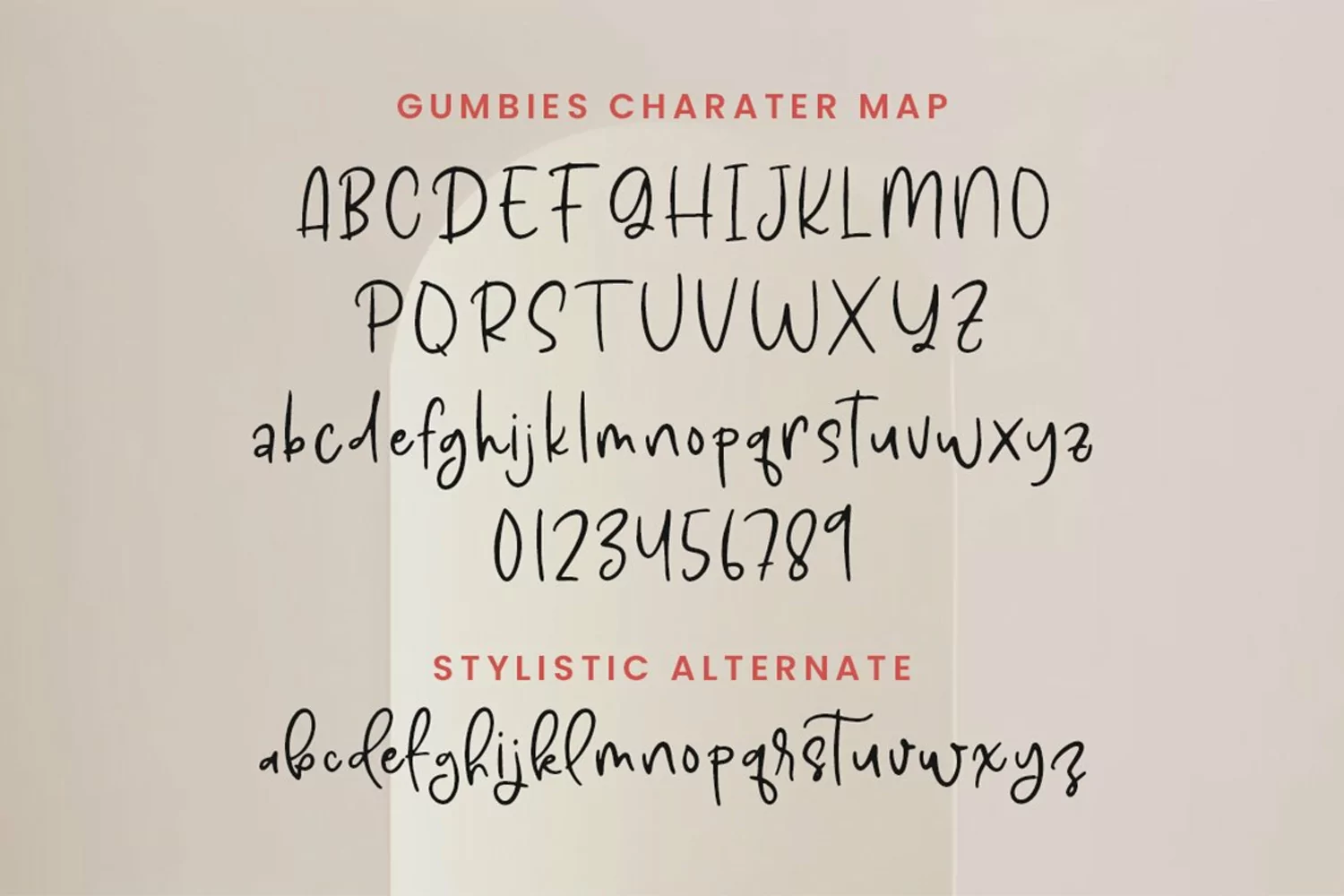
Gumbies a Kids font. with a bit of ligatures and alternates. To give you an extra creative work. Gumbies font support multilingual more than 100+ language. This font is good for logo design, Social media, Movie Titles, Books Titles, a short text even a long text letter and good for your secondary text font with sans or serif. Make a stunning work with Gumbies font.
Gumbies